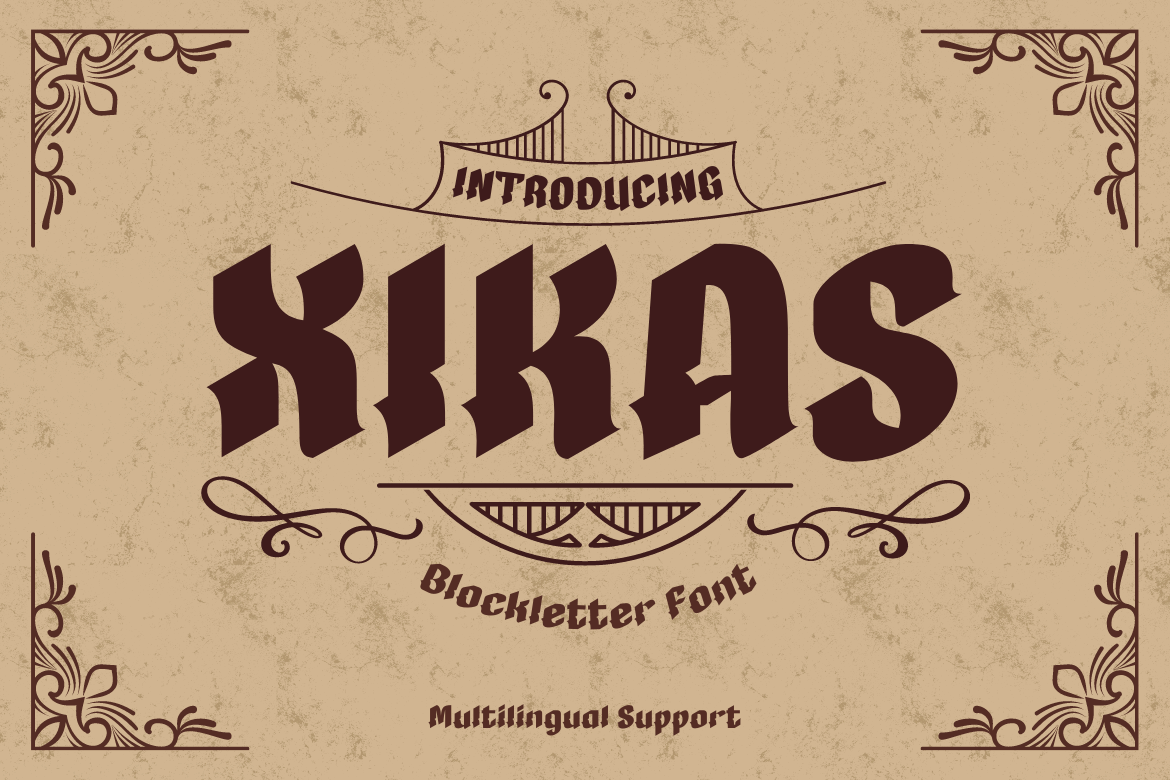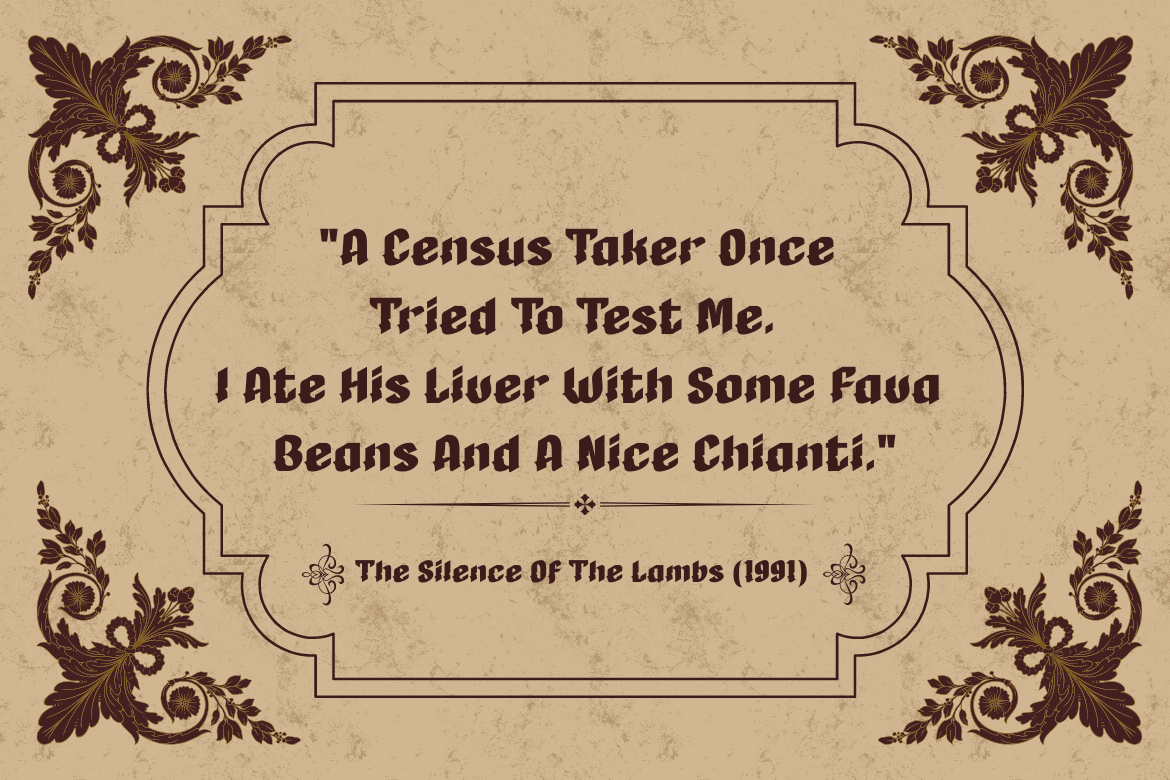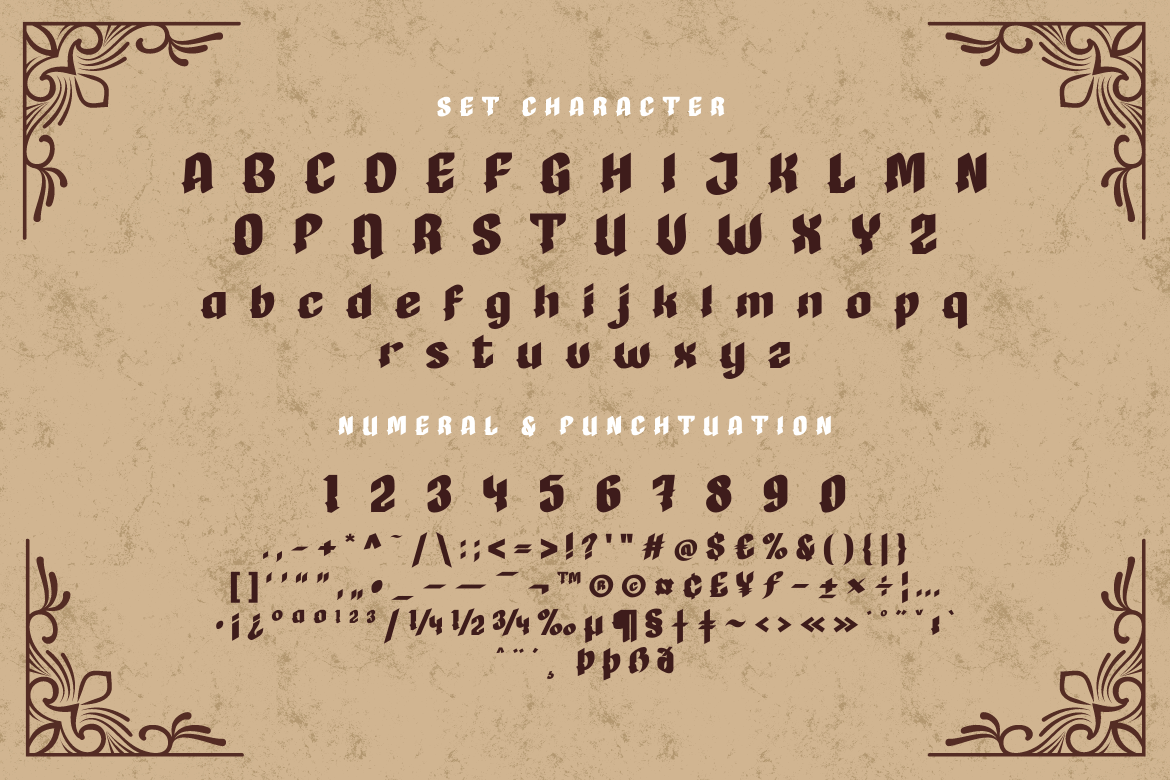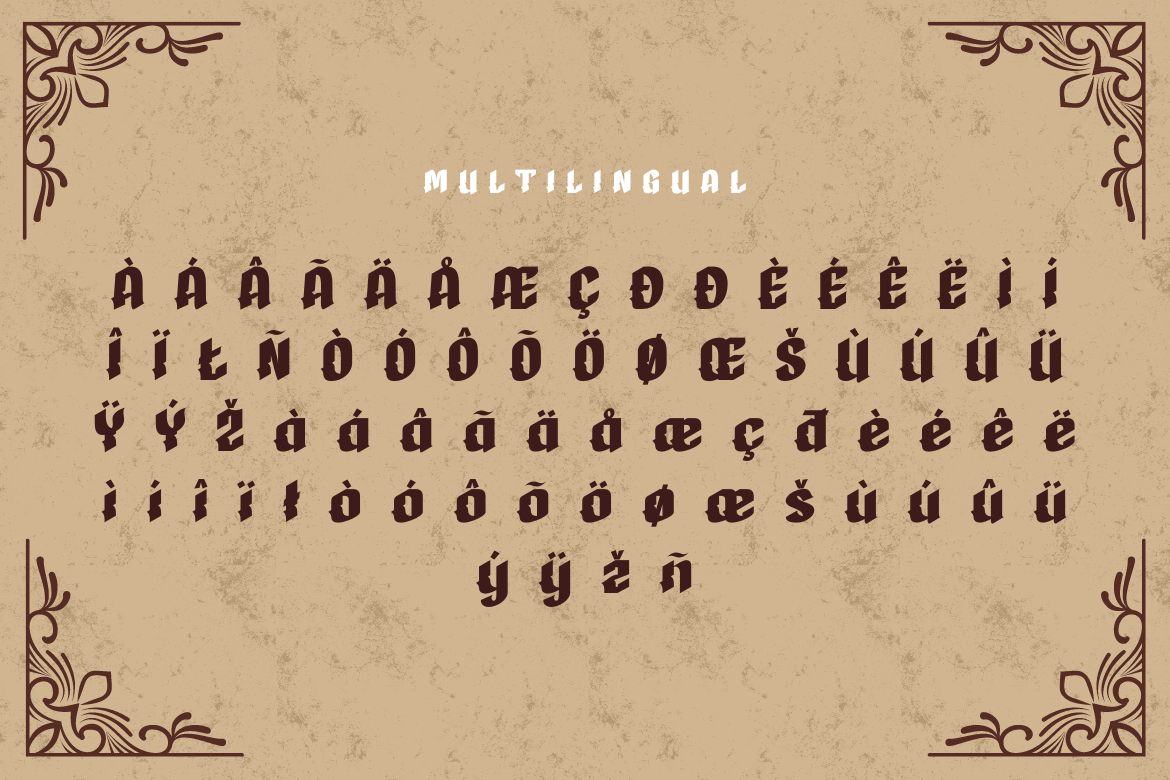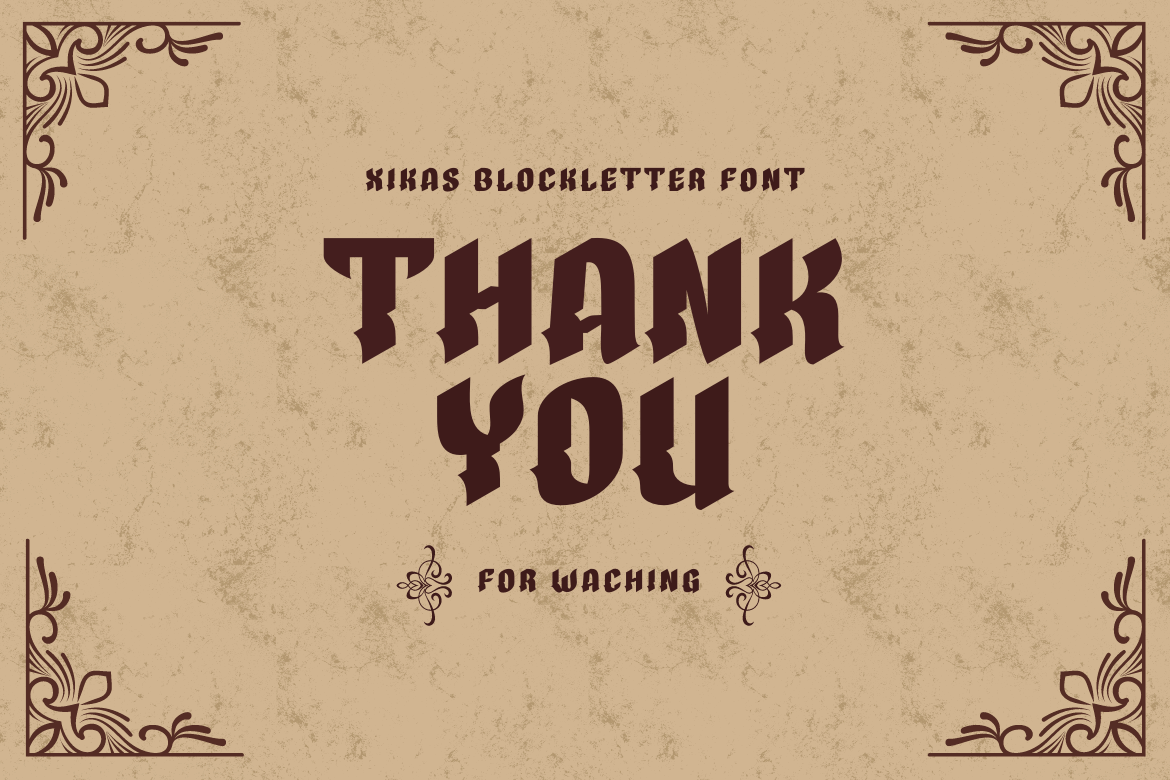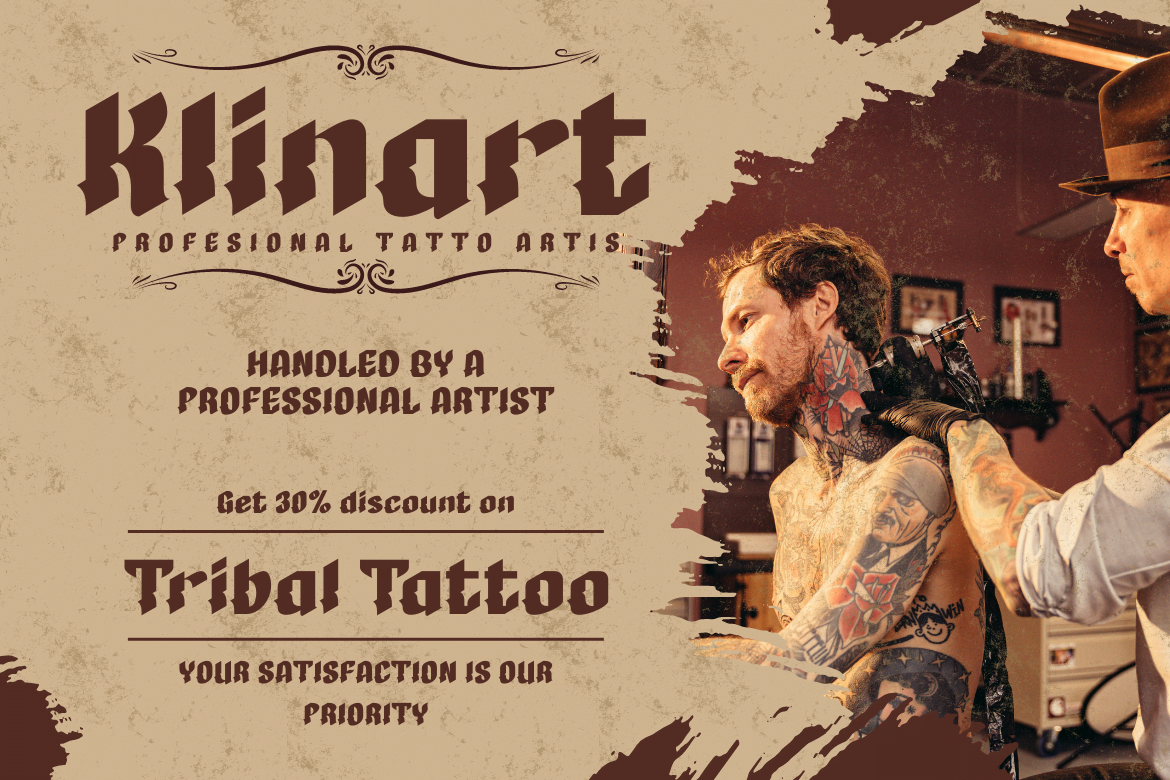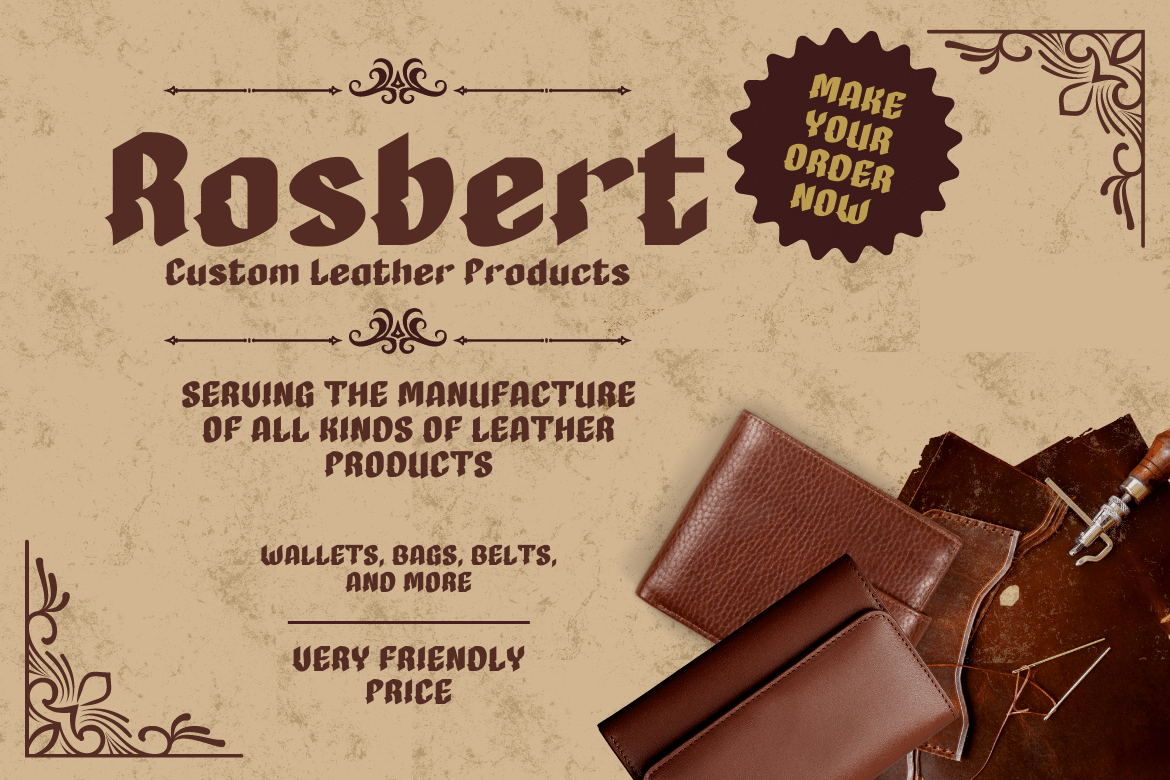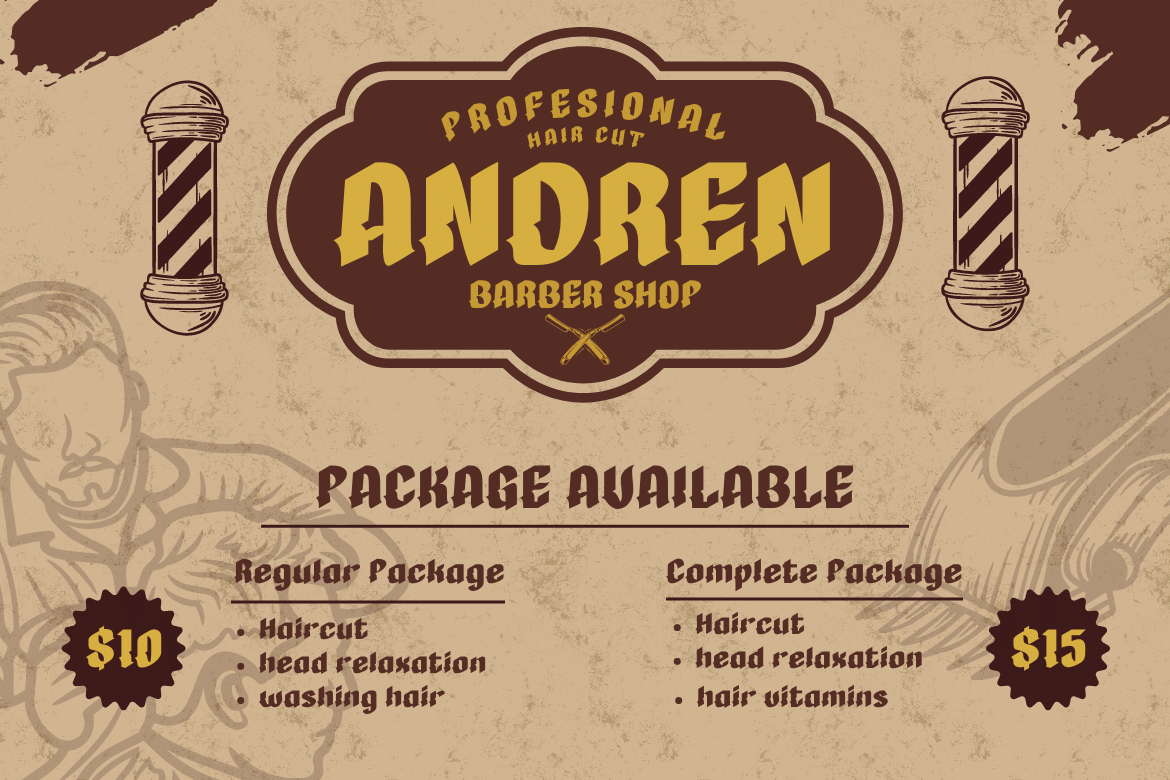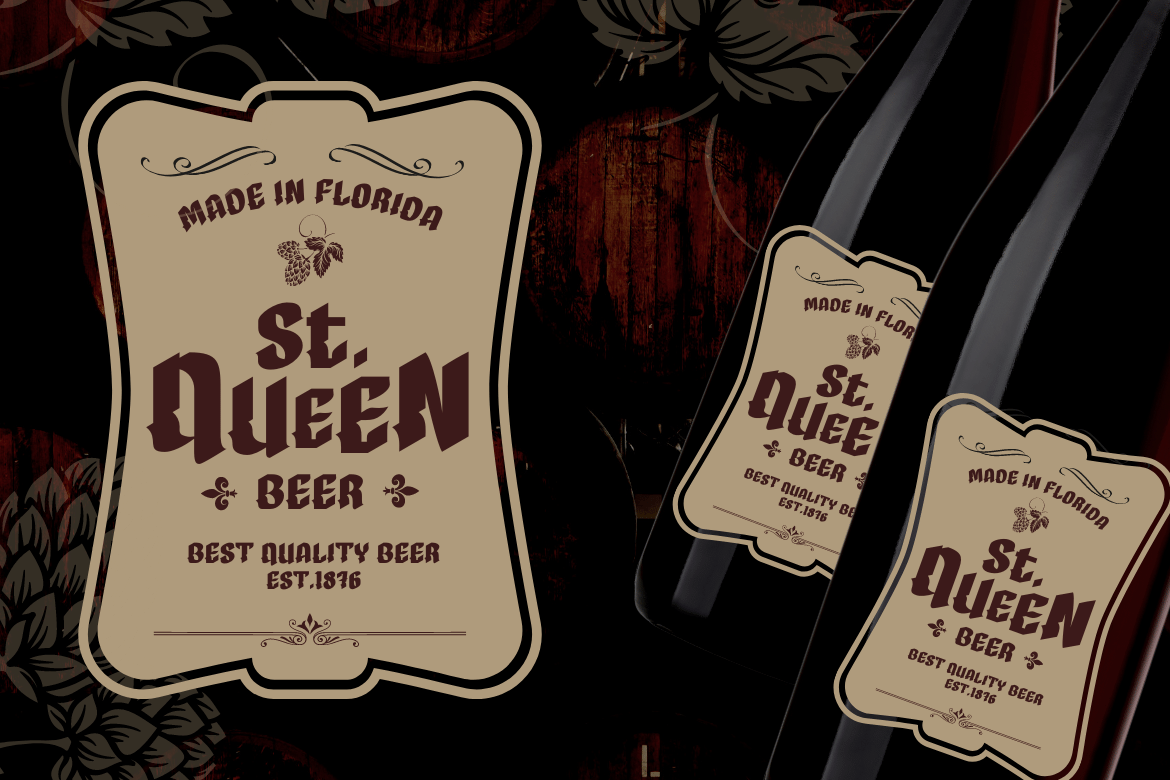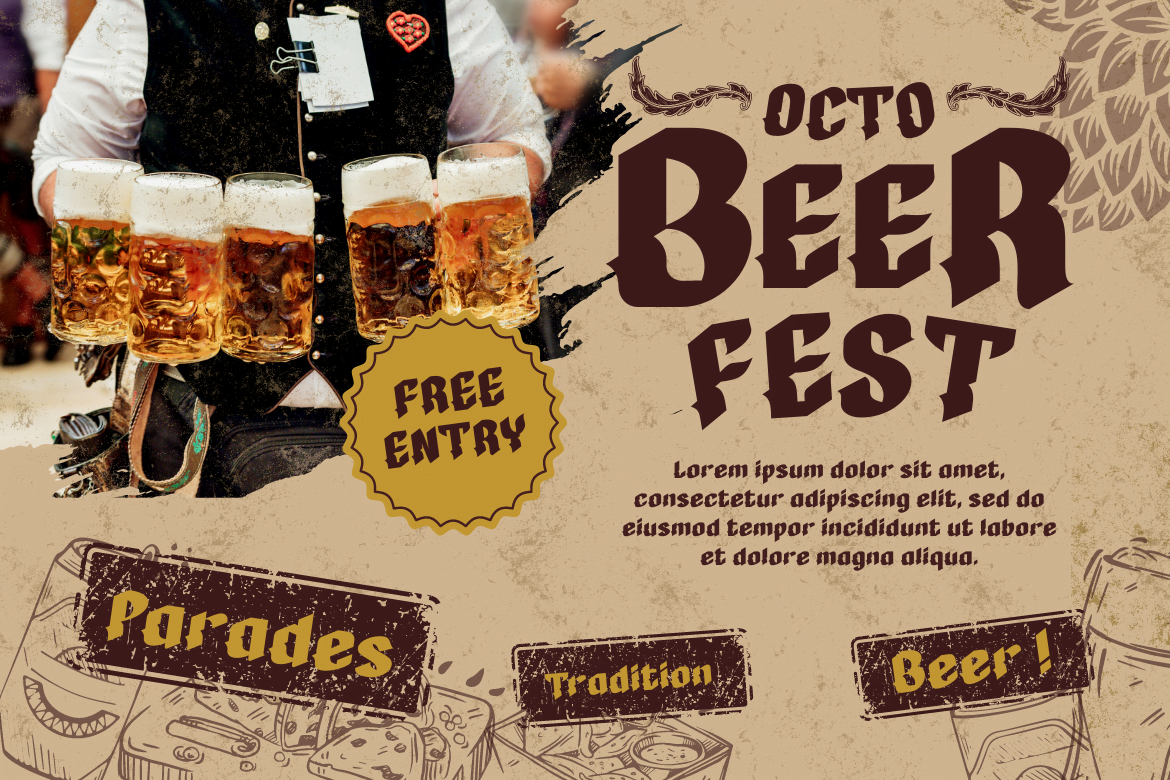
XIKAS
XIKAS is the newest font in our gothic series, featuring a classic and elegantly designed typeface. With a classic design, this font uses striking details to exude a confident elegance that appeals to all genders, ages, and tastes. It can be used in a variety of projects to create an attractive vintage and elegant style that evokes elegance, luxury, and a strong personality.